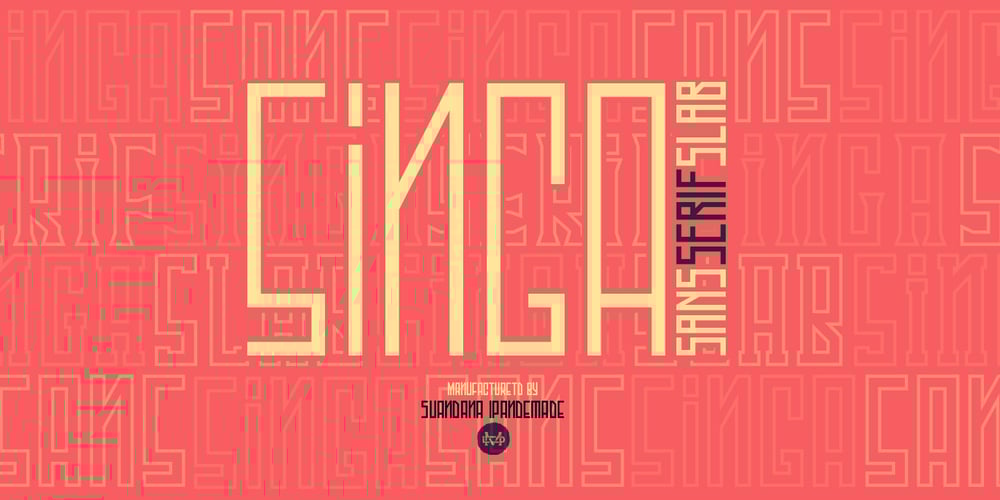
Singa
Singa font
Singa Font Family was designed by Suandana ipandemade and published by madeDeduk. Singa contains 54 styles and family package options. Introducing Singa is a three distinct classic casual family comes with 9 variable weight to get more stunning. Use this font family for any branding, product packaging, invitation, quotes, t-shirt, label, poster, logo etc.Character Set Uppercase & Lowercase Number & Symbol International Glyphs Alternative & Ligatures Multilingual support Feel free to shoot me on email at: dedukvic@gmail.com any time and follow my shop for upcoming updatesAnd find more previews on my Instagram here : https://www.instagram.com/acekelgondolayu/?hl=enHope you enjoy it.